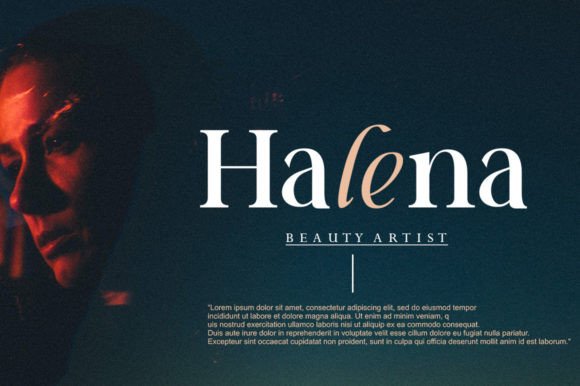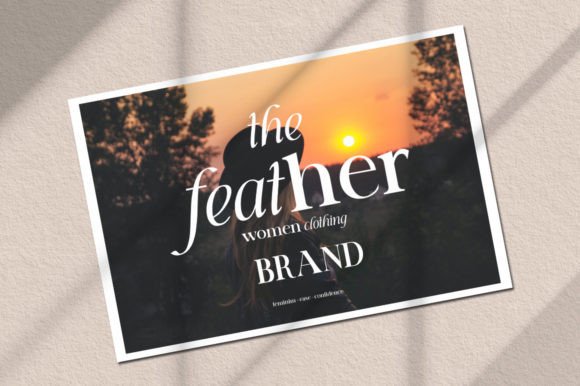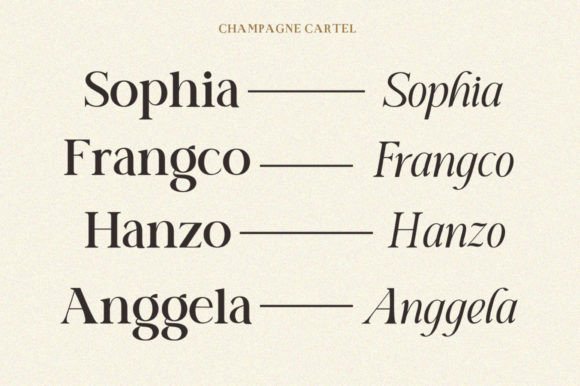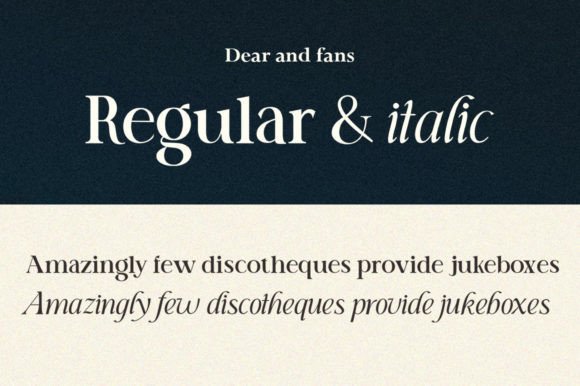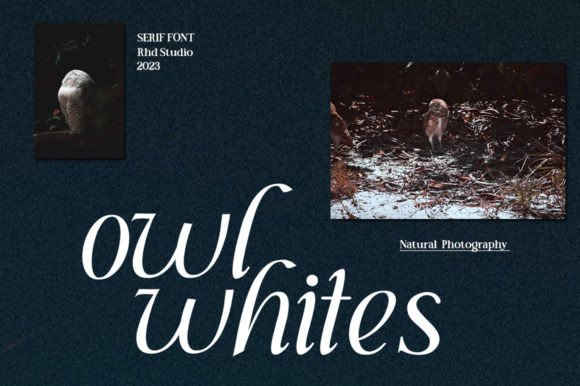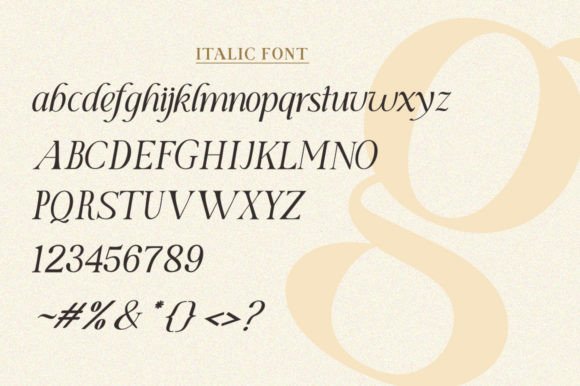
Introducing Dear and Fans: The Ultimate Classy Font for Designers and Crafters
Are you tired of using the same old fonts in your designs? Do you want to add a touch of elegance and sophistication to your projects? Look no further than Dear and Fans, a stylish modern font that is sure to take your designs to the next level. In this article, we’ll take a closer look at what makes Dear and Fans so special and why it’s a must-have for designers and crafters.
A Unique Blend of Serif and Sans Serif
Dear and Fans is a unique font that combines the best of both worlds – the classic elegance of serif fonts and the modern simplicity of sans serif fonts. This blend of styles creates a font that is both timeless and contemporary, making it perfect for a wide range of design projects. Whether you’re creating a logo, brochure, or social media graphic, Dear and Fans is sure to make a statement.
Soft Curves and High-Contrast Glyphs
One of the standout features of Dear and Fans is its soft curves and high-contrast glyphs. The font’s gentle curves give it a feminine touch, while the high-contrast glyphs add a masculine edge. This combination of qualities makes Dear and Fans a versatile font that can be used in a variety of contexts. Whether you’re designing for a feminine or masculine audience, Dear and Fans is sure to resonate.
Add a Touch of Class to Your Designs
Dear and Fans is a font that exudes class and sophistication. Its elegant lines and refined curves make it perfect for designs that require a touch of luxury. Whether you’re creating a brand identity, packaging, or advertising materials, Dear and Fans is sure to elevate your designs and make them stand out from the crowd.
Dear and Fans is a font that is perfect for designers and crafters who want to add a touch of elegance to their projects. Whether you’re creating digital designs or handmade crafts, Dear and Fans is sure to inspire. The font’s versatility and charm make it perfect for a wide range of projects, from paper crafting to embroidery, and from graphic design to digital art.
Key Features of Dear and Fans
- Unique blend of serif and sans serif styles: Dear and Fans combines the best of both worlds to create a font that is both timeless and contemporary.
- Soft curves and high-contrast glyphs: The font’s gentle curves and high-contrast glyphs give it a feminine and masculine edge.
- Versatile and charming: Dear and Fans is perfect for a wide range of design projects, from logos to brochures, and from social media graphics to packaging.
- Perfect for designers and crafters: Whether you’re creating digital designs or handmade crafts, Dear and Fans is sure to inspire.
In conclusion, Dear and Fans is a stylish modern font that is sure to take your designs to the next level. Its unique blend of serif and sans serif styles, soft curves, and high-contrast glyphs make it a versatile and charming font that is perfect for designers and crafters. Whether you’re creating digital designs or handmade crafts, Dear and Fans is sure to add a touch of elegance and sophistication to your projects. So why wait? Add Dear and Fans to your design toolkit today and enjoy the results!